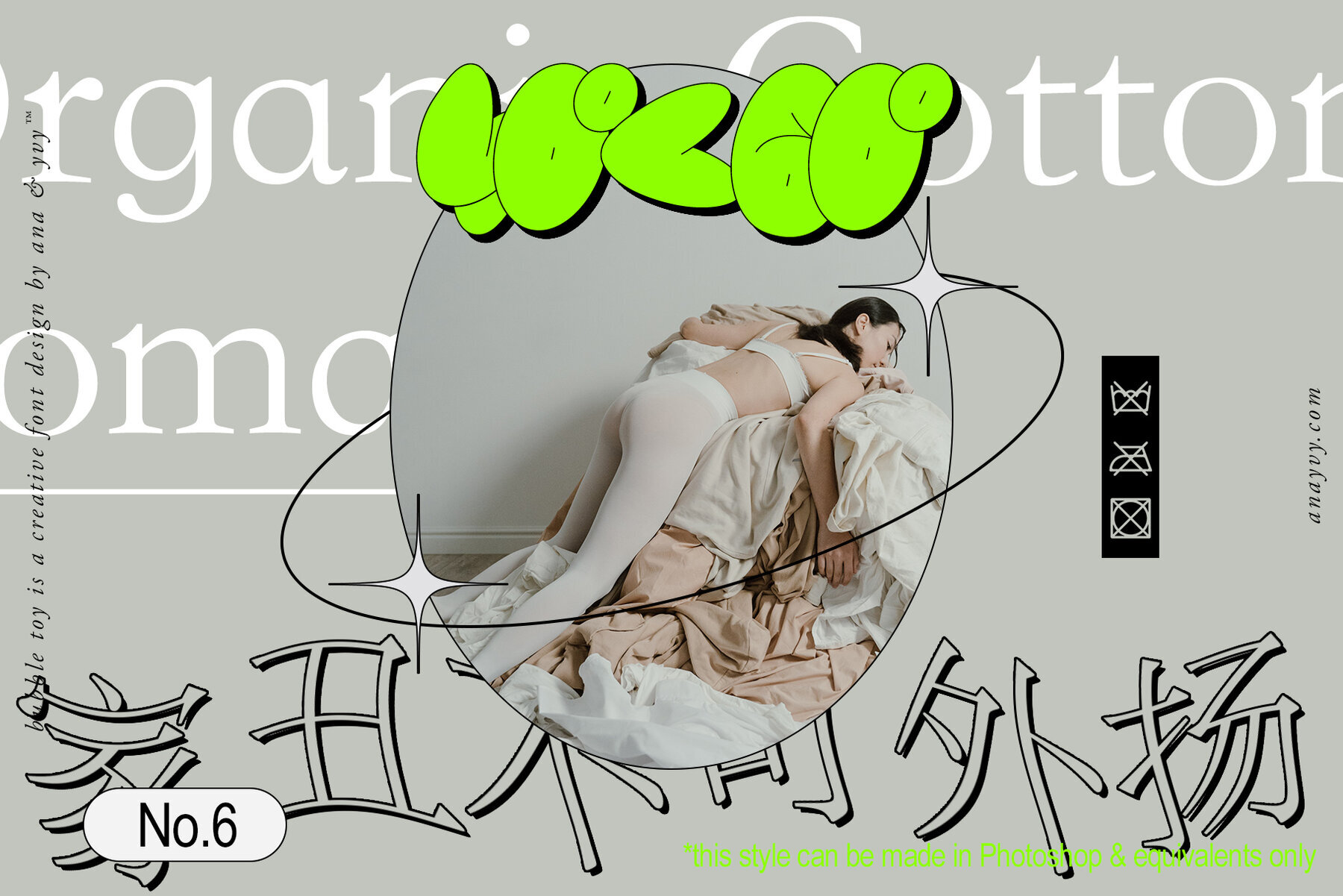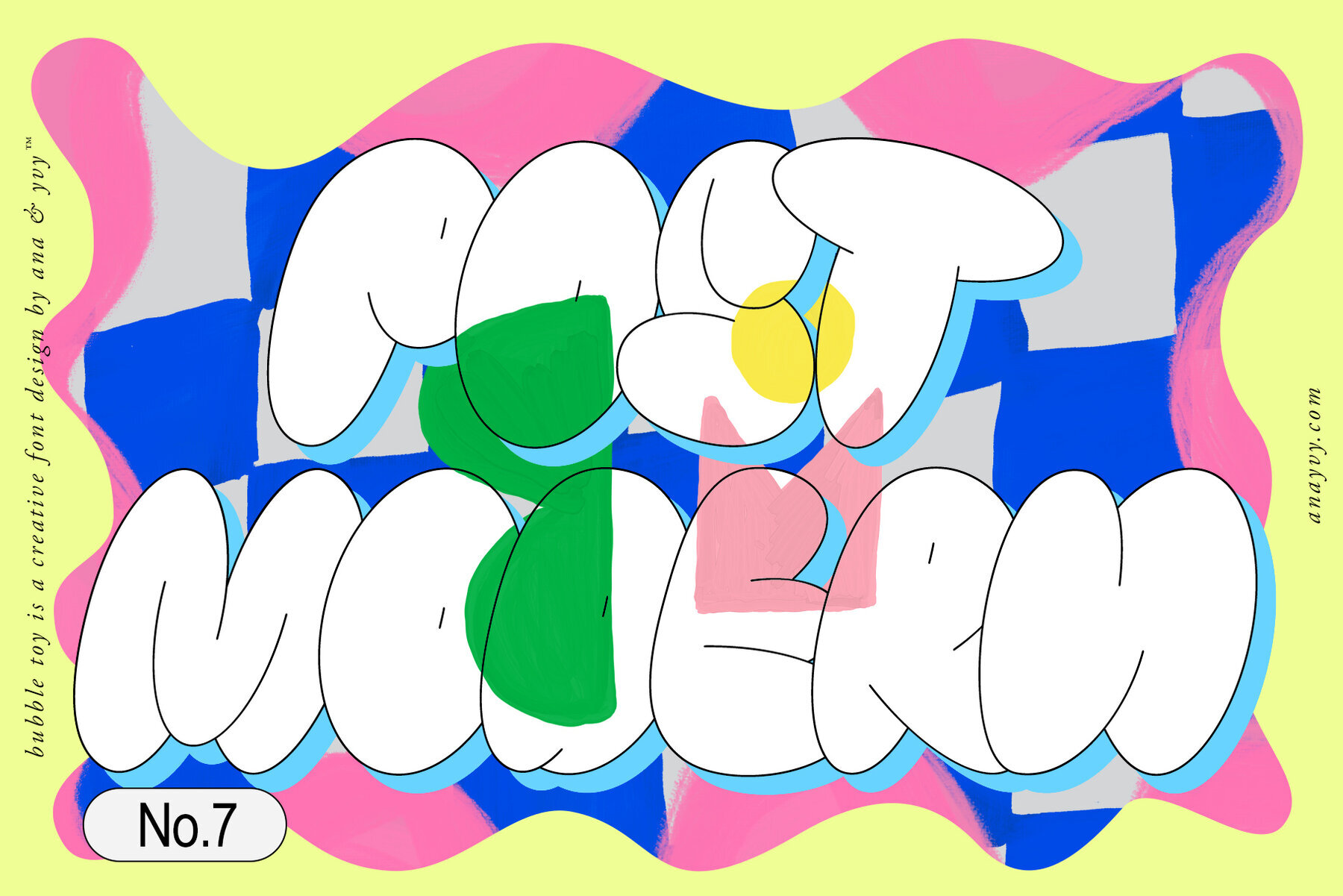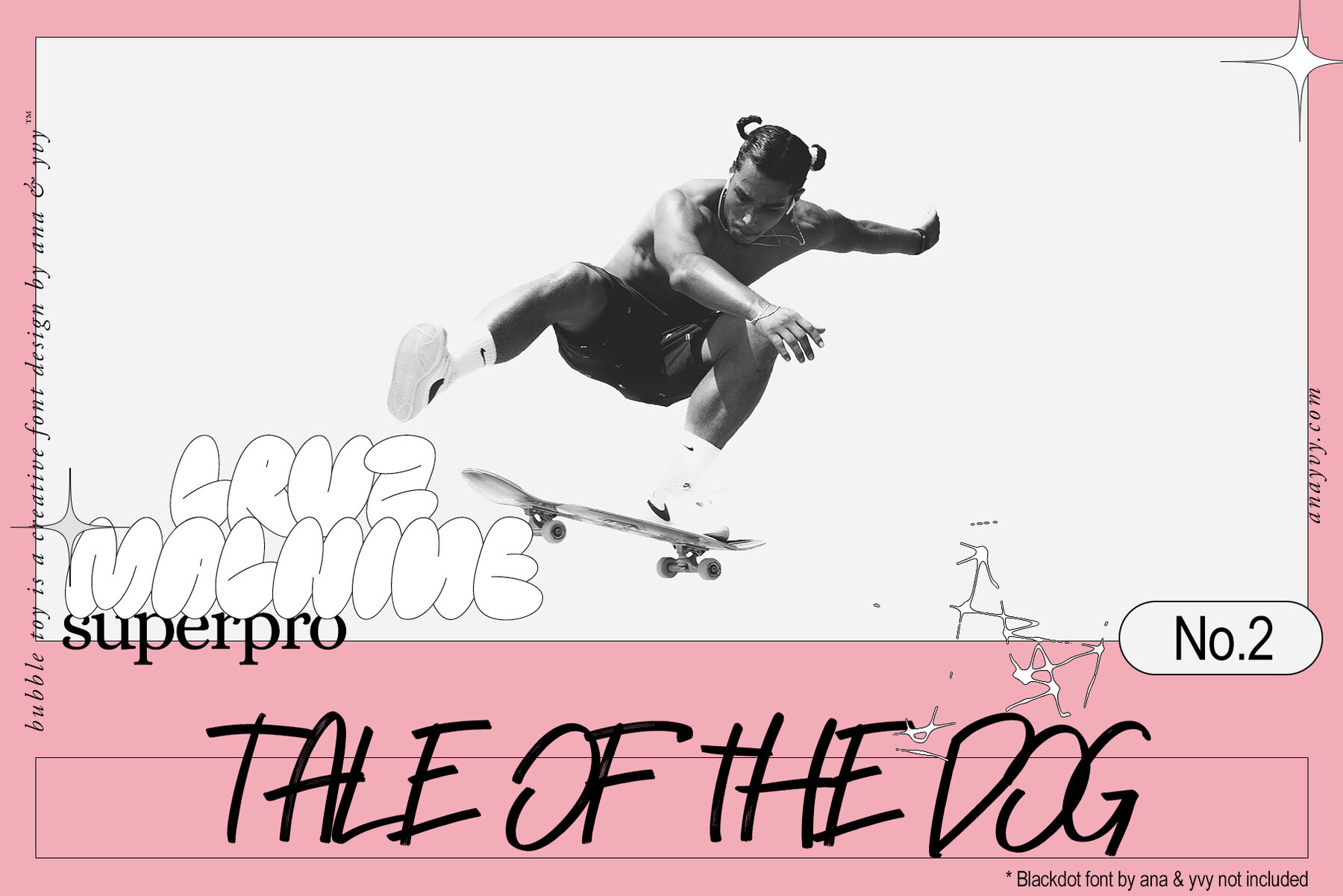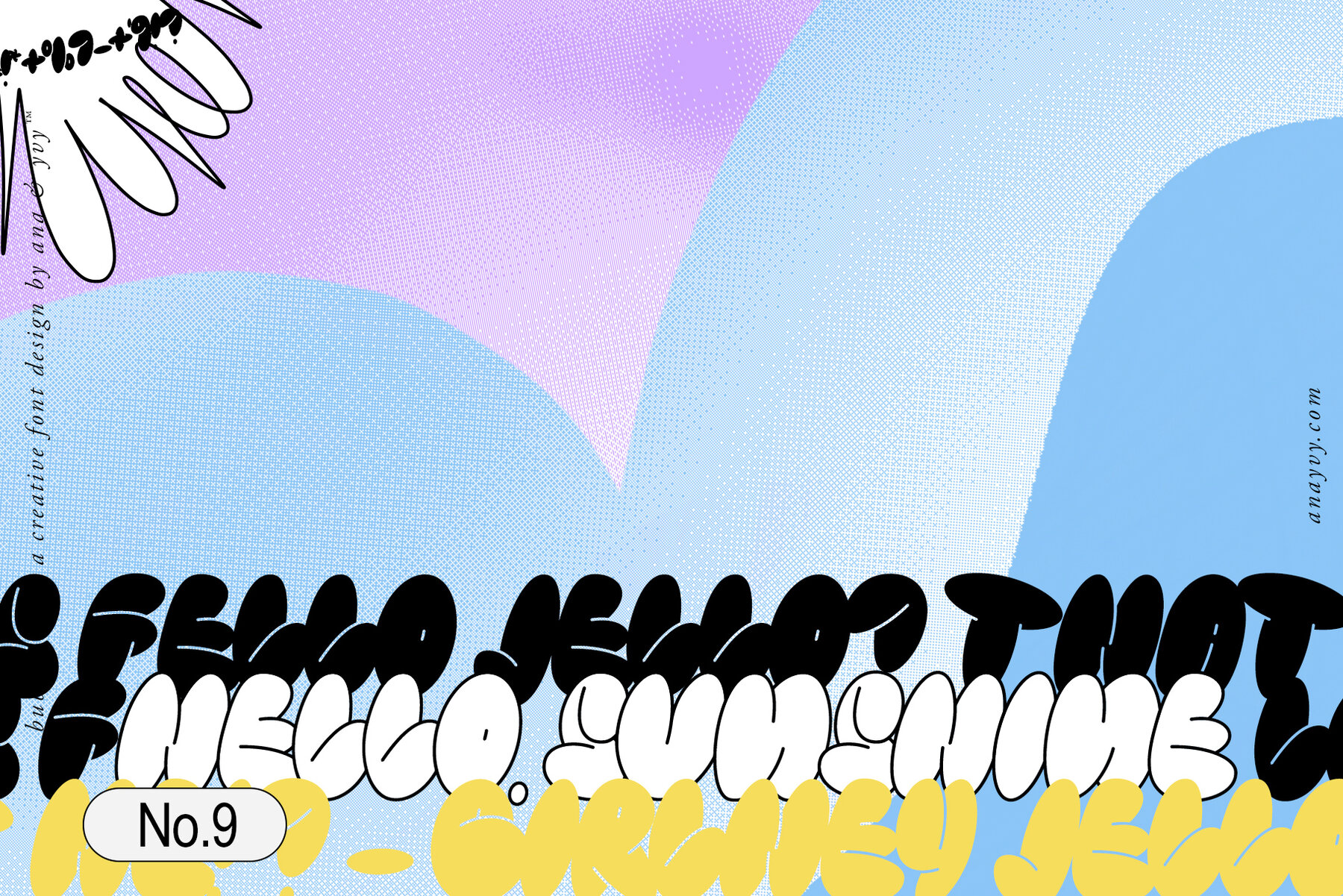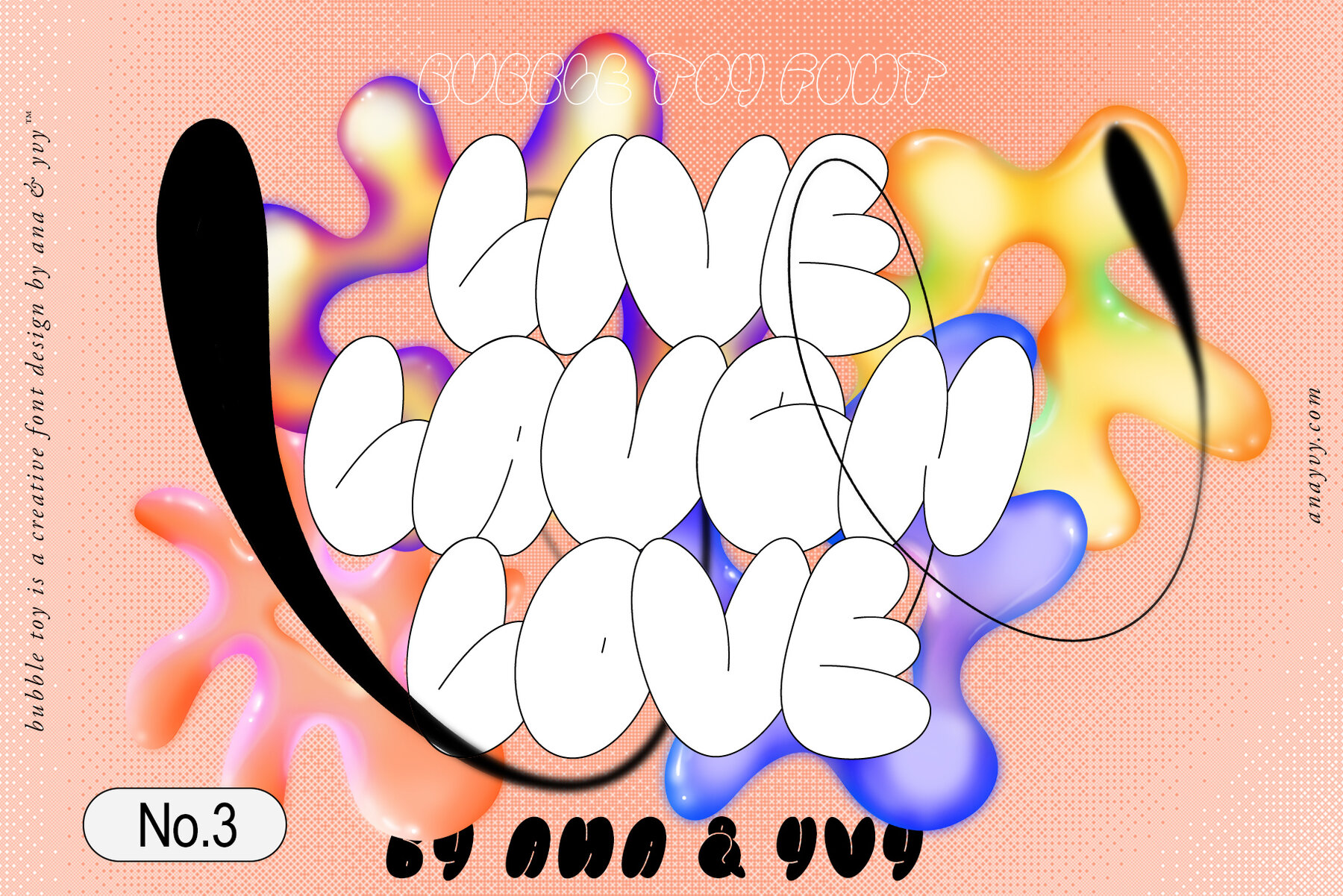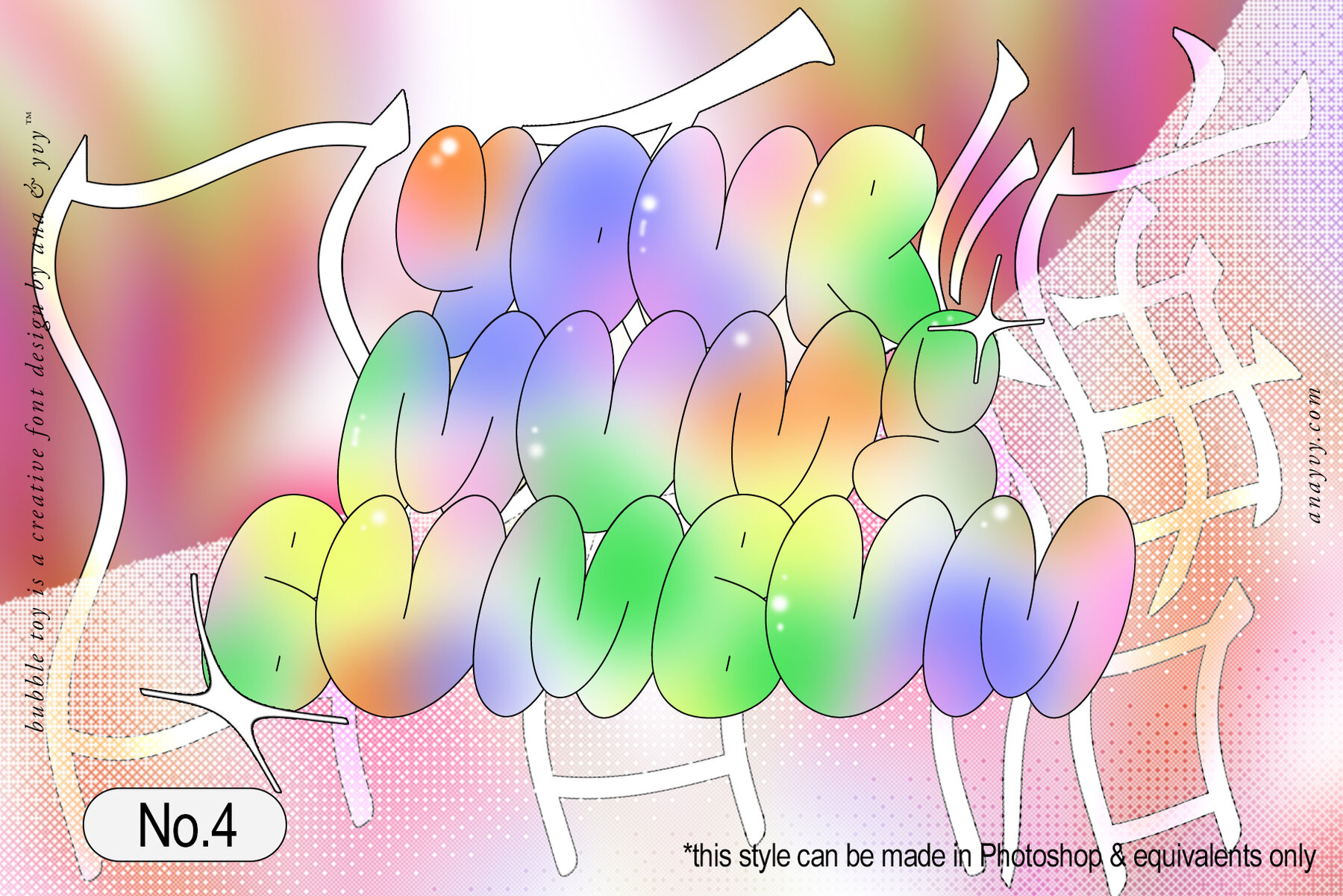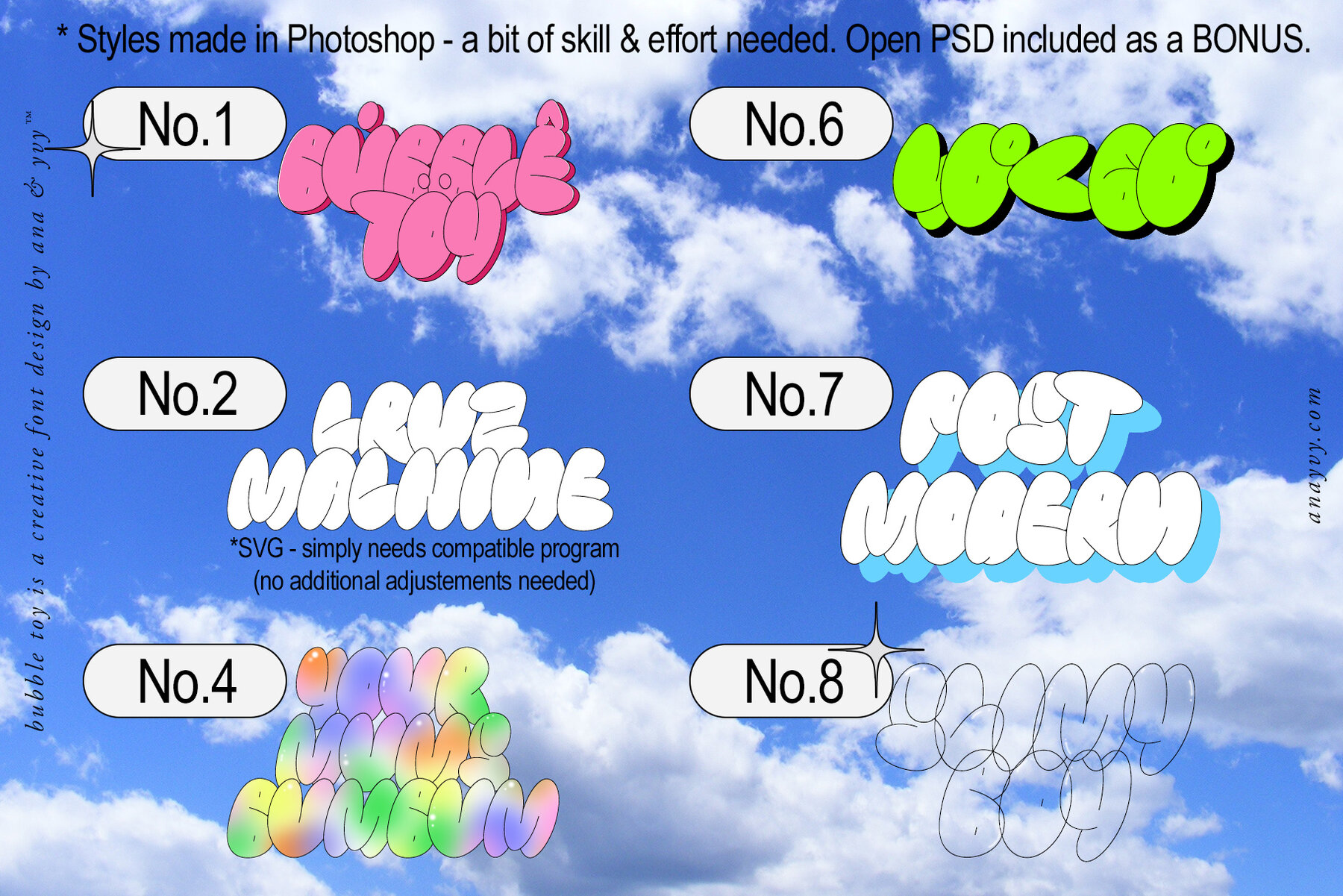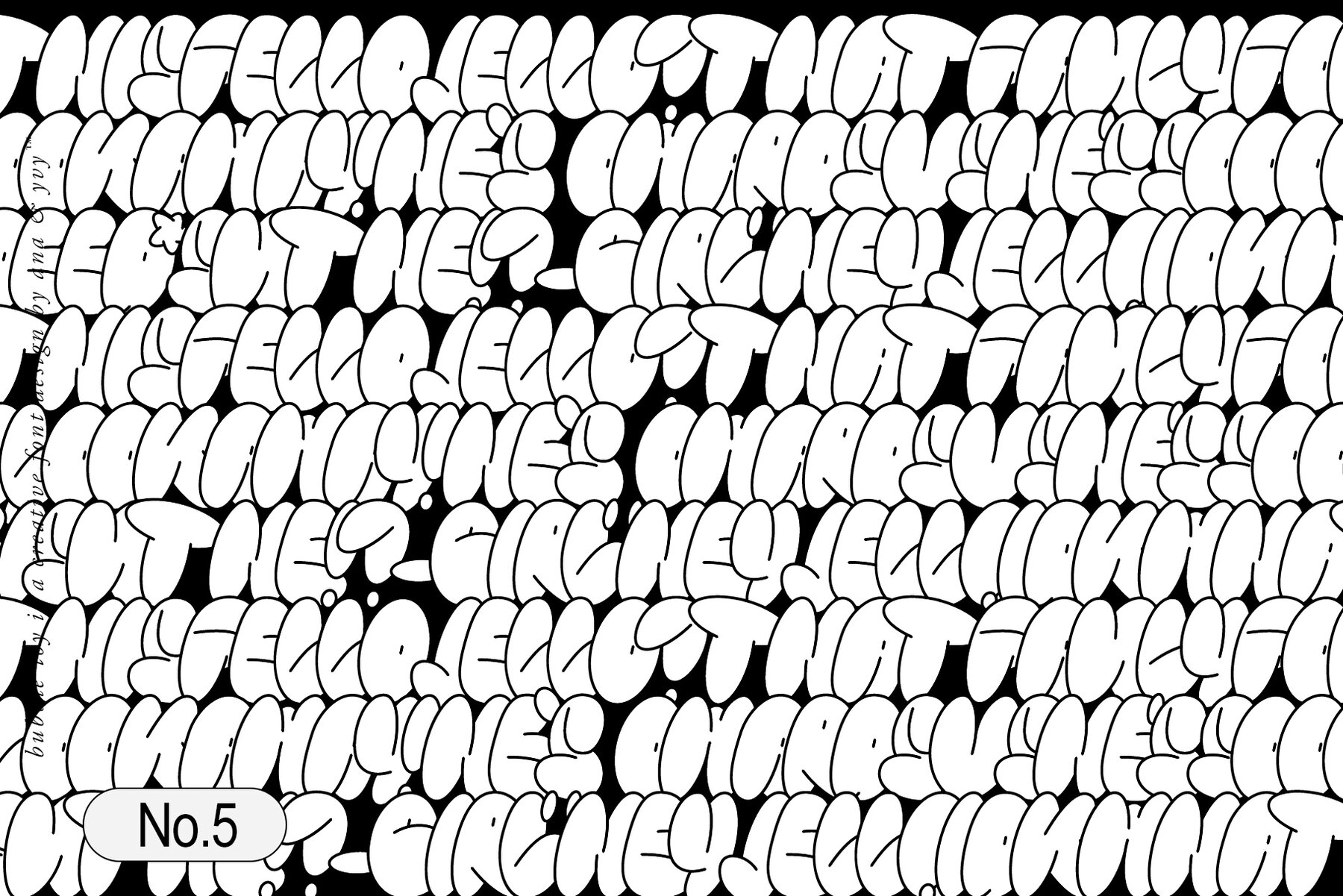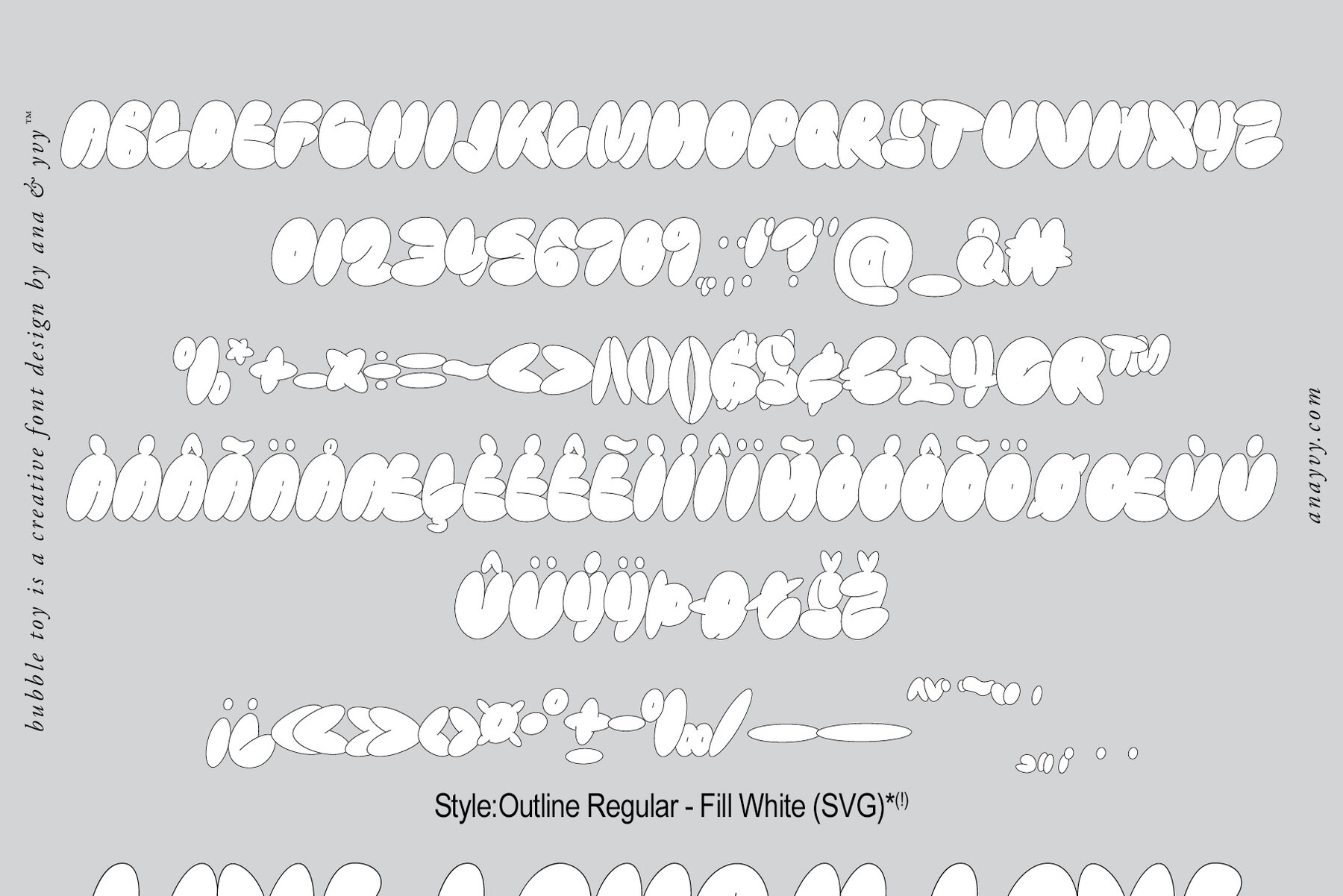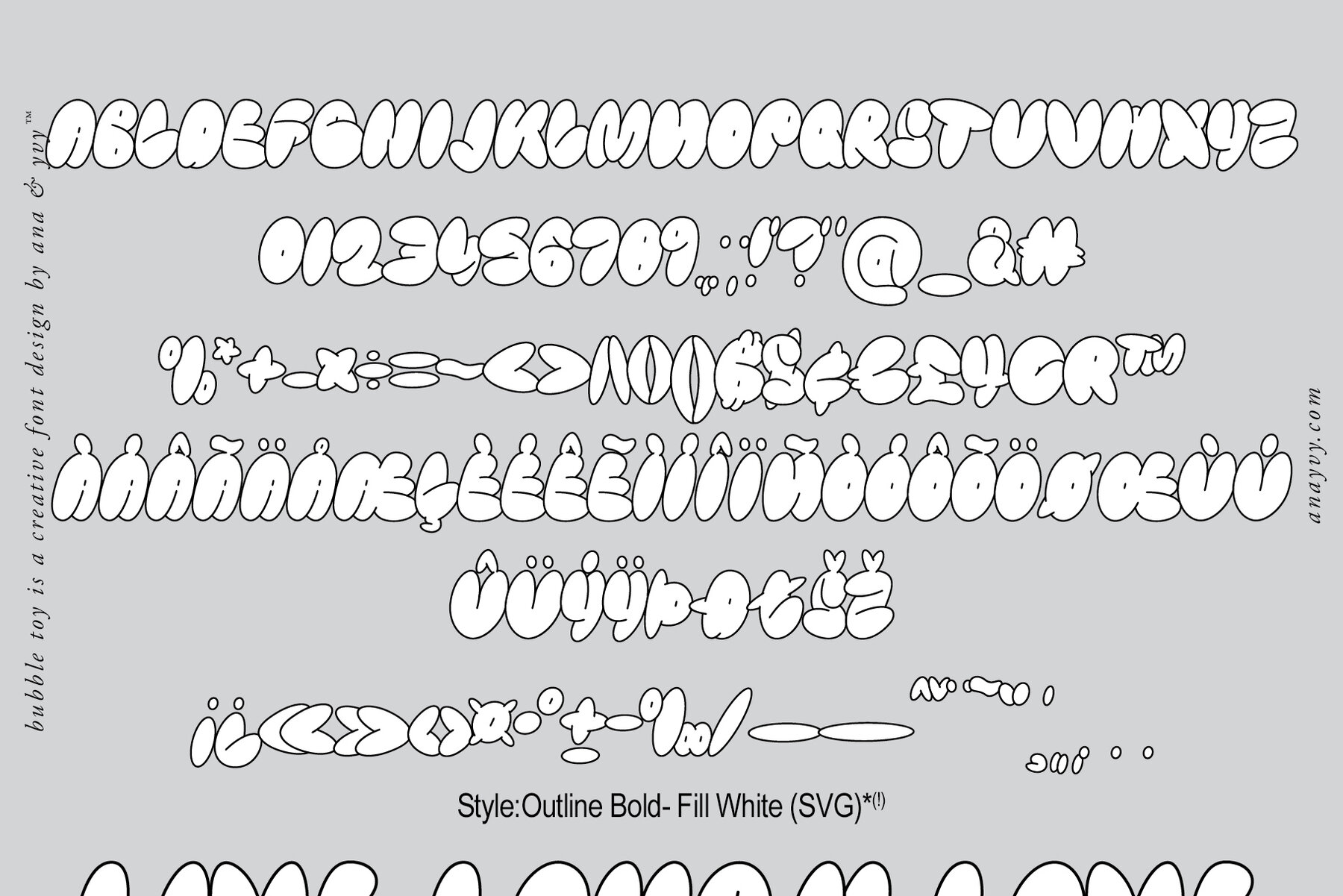
Bubble Toy Font
Inspired by the iconic graffiti styles of the 90s and early 2000s, Bubble Toy is a playful font family designed with a touch of nostalgia. It features six distinct styles crafted with vector precision, offering vibrant and handmade fun to any design endeavor. Explore several style setups through an included PSD file, offering a glimpse into the design elements featured in the preview images. This file requires a basic understanding of Photoshop for effective utilization, as it is intended as an informational bonus rather than a comprehensive tutorial.Bubble Toy: Graffiti Font Family with 90s Flair